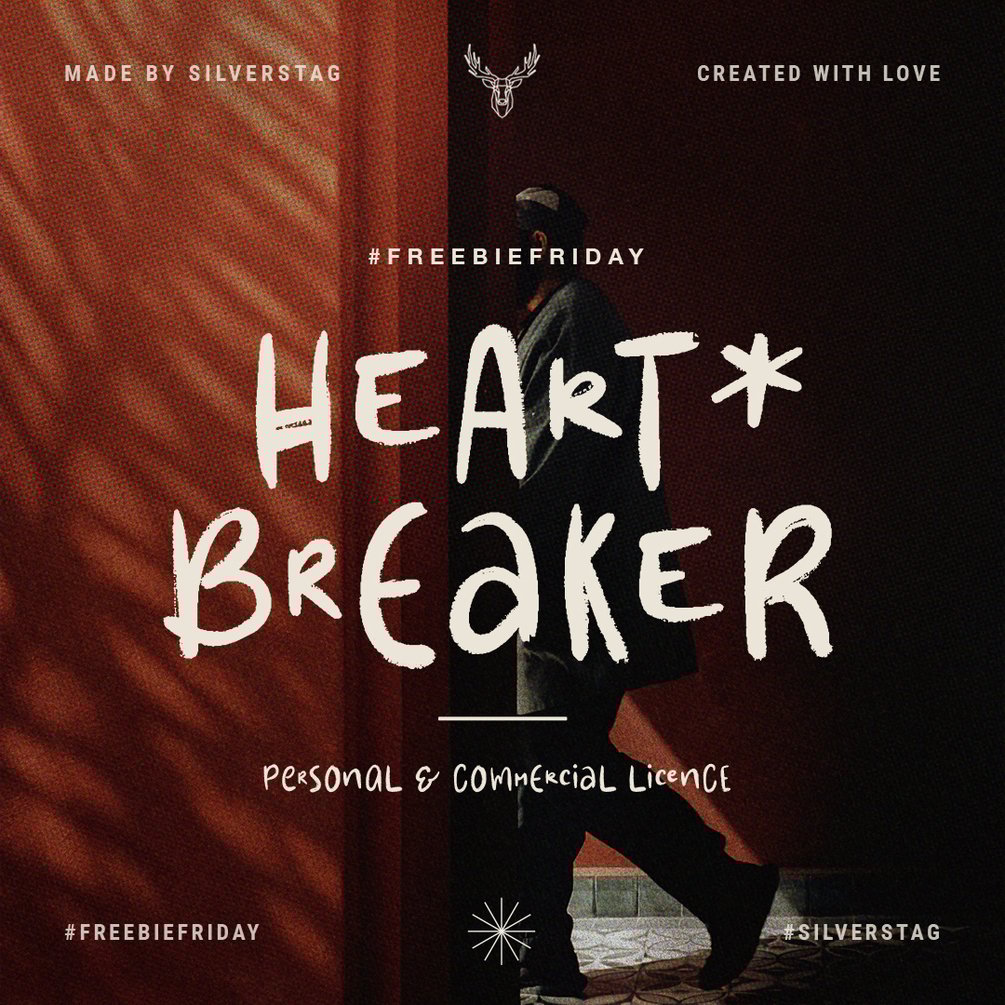
HeartBreaker - FREE Creative & Playful Handwritten Font
Inspired by a certain TV show (obviously), I am happy to give you a quirky & playful font HeartBreaker. With 130 alternate letters you can use it to make logos, quotes, social media posts,... well, whatever you set up yourself up to! The true handwritten look will elevate your work and help you create some new and unique designs.
Uppercase & Lowercase Letters
130 Alternate Letters
Numbers & Symbols